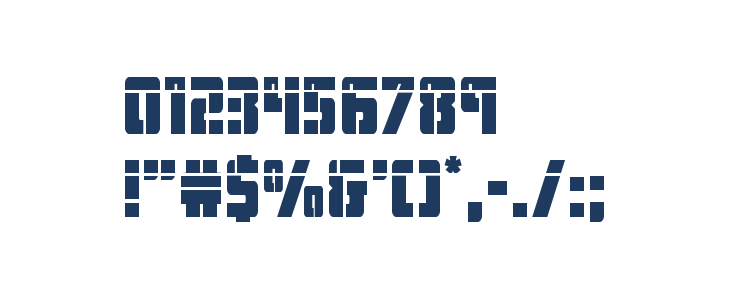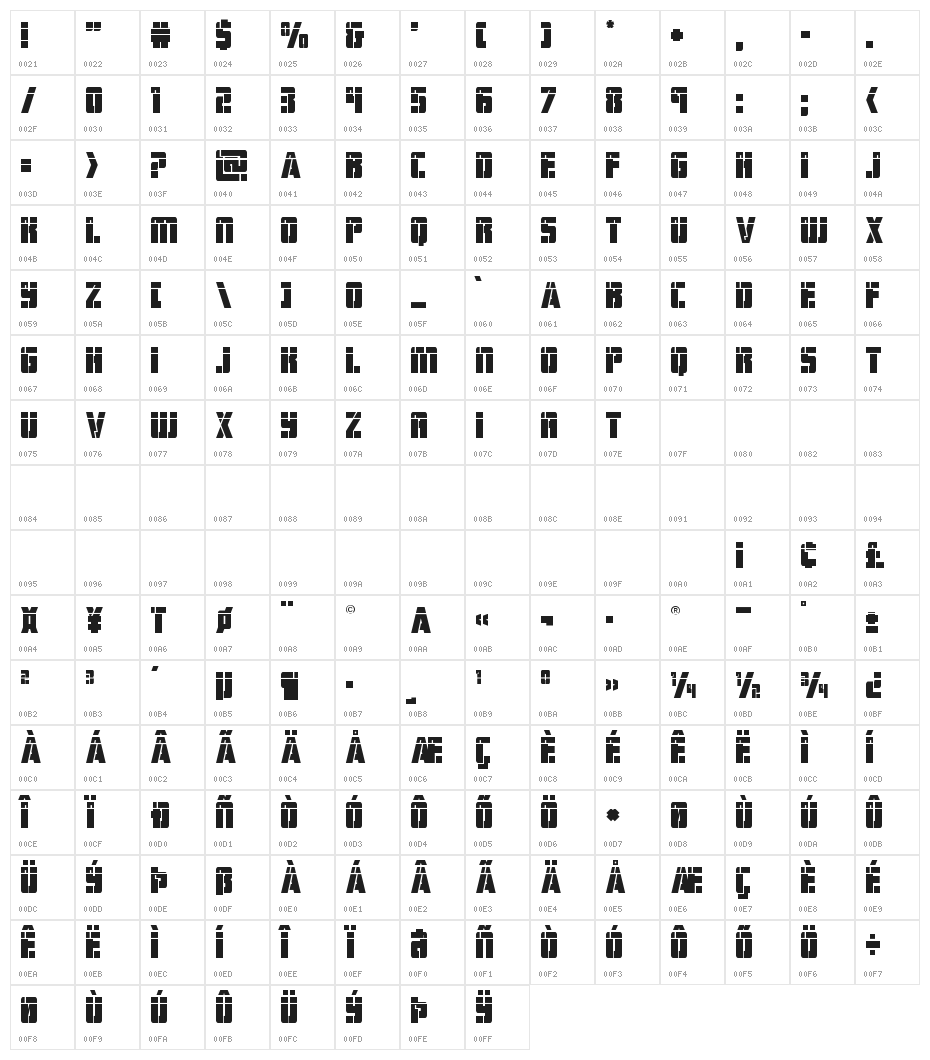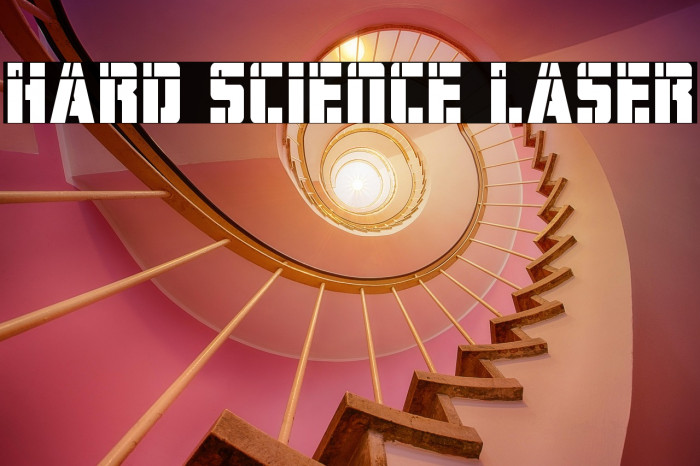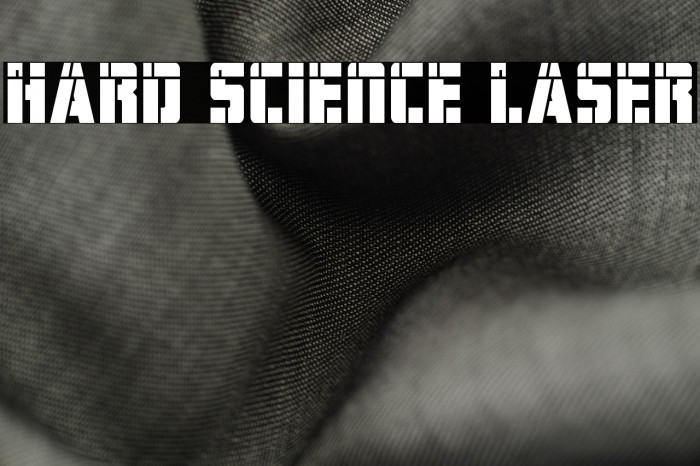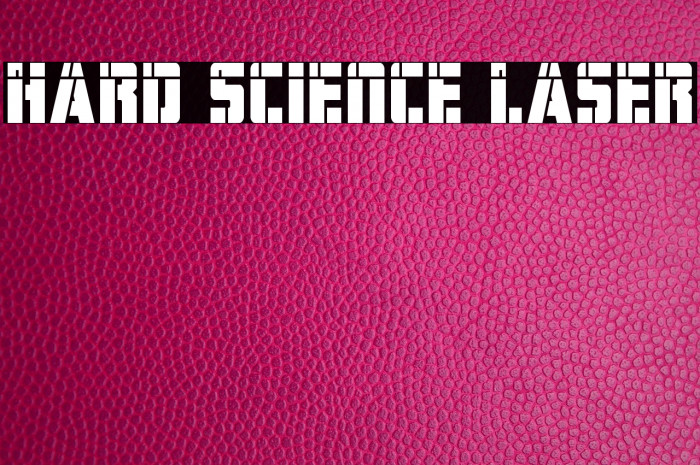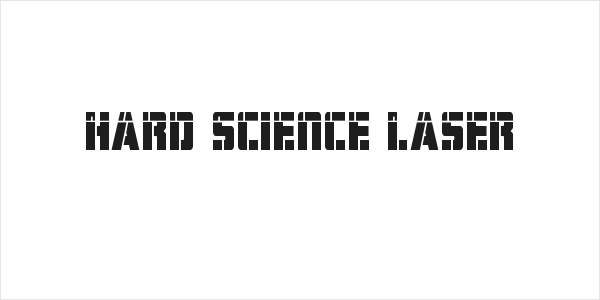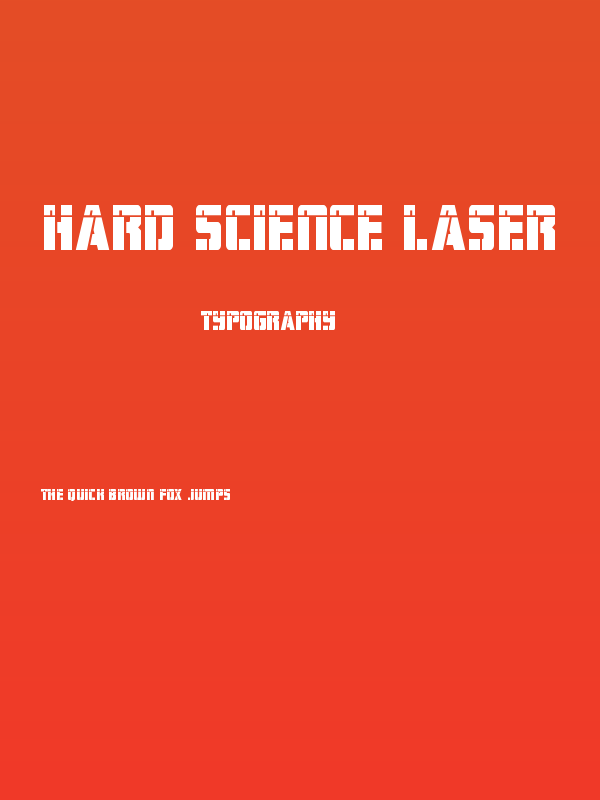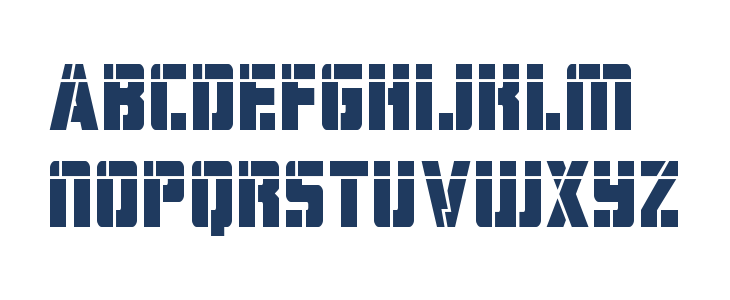
Hard Science Laser Font
Hard Science Laser Description
This font features a bold, futuristic design with a stencil-like appearance. The characters are constructed with thick, blocky strokes and have a high level of contrast, creating a striking visual impact. The geometric shapes and sharp angles give it a modern, industrial feel. The uppercase and lowercase letters maintain a consistent style, while the numbers and special characters complement the overall aesthetic. The font's design is reminiscent of science fiction and technology themes, making it ideal for projects that require a strong, impactful typeface.
| Overall Style | Futuristic, Industrial |
| Proposed Projects | Ideal for sci-fi themed posters, technology branding, video game titles, and futuristic event flyers. |